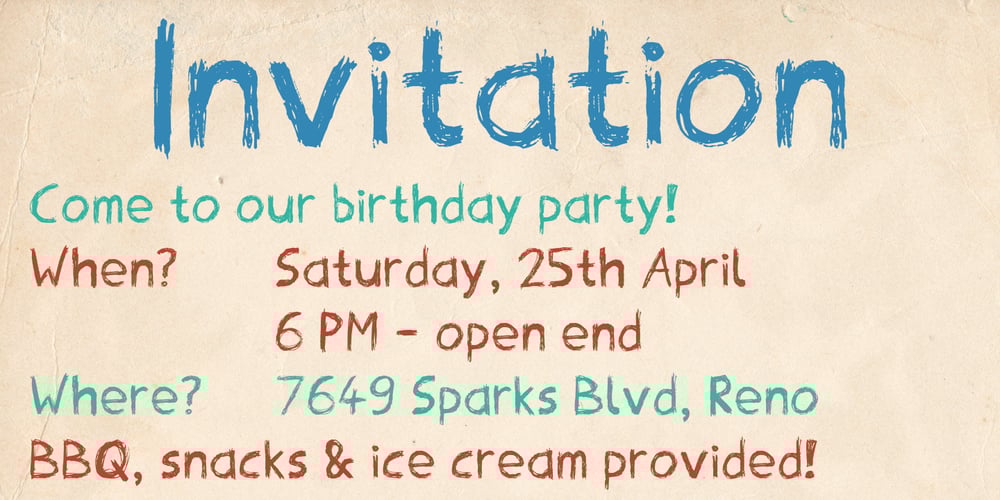
Scribblex Font Family was designed by Matthias Luh and published by Matthias Luh. Scribblex contains 1 styles and family package options. Scribblex is a new generation of handwritten sketch fonts. It was originally designed with a ballpen and a sketchbook. After scribbling the characters, I scanned, edited and aligned them. So Scribblex is truly a ‘sketchbook font’.